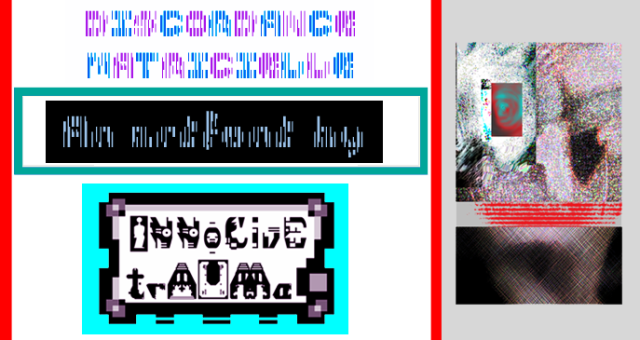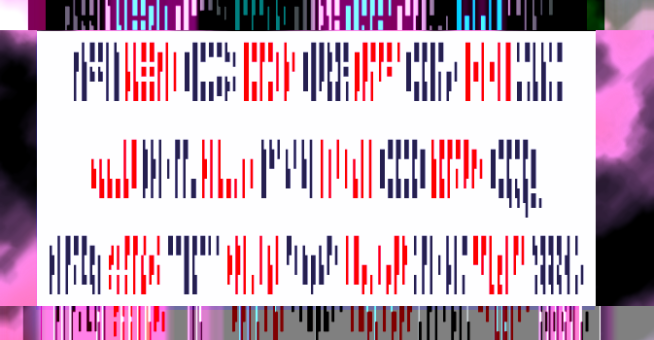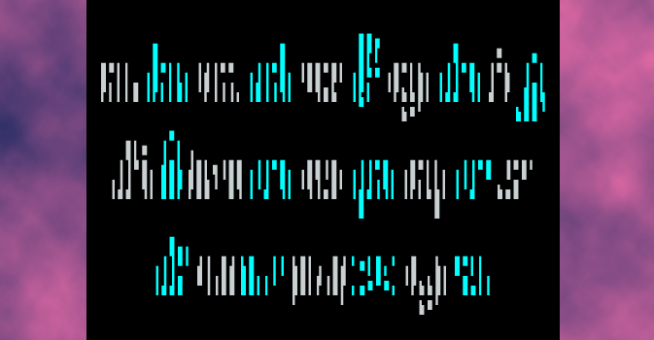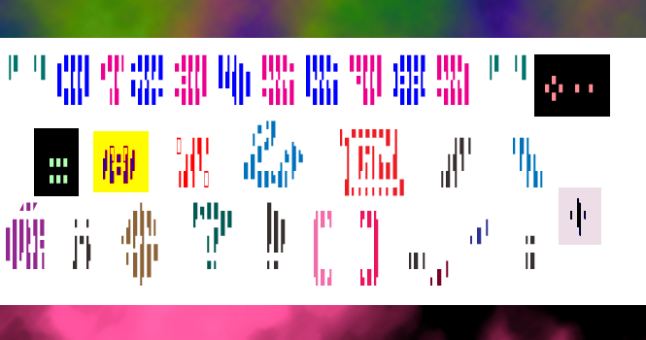
trAUMa 54 / Discordance Matricielle
"Discordance Matricielle", like all the "trAUMa" series, works at the frontier between Art & Type Design, Figuration & Abstraction, each font is a comprehensive world in which every glyph is a "living" entity. But put together they can produce your messages in the most accurate way.